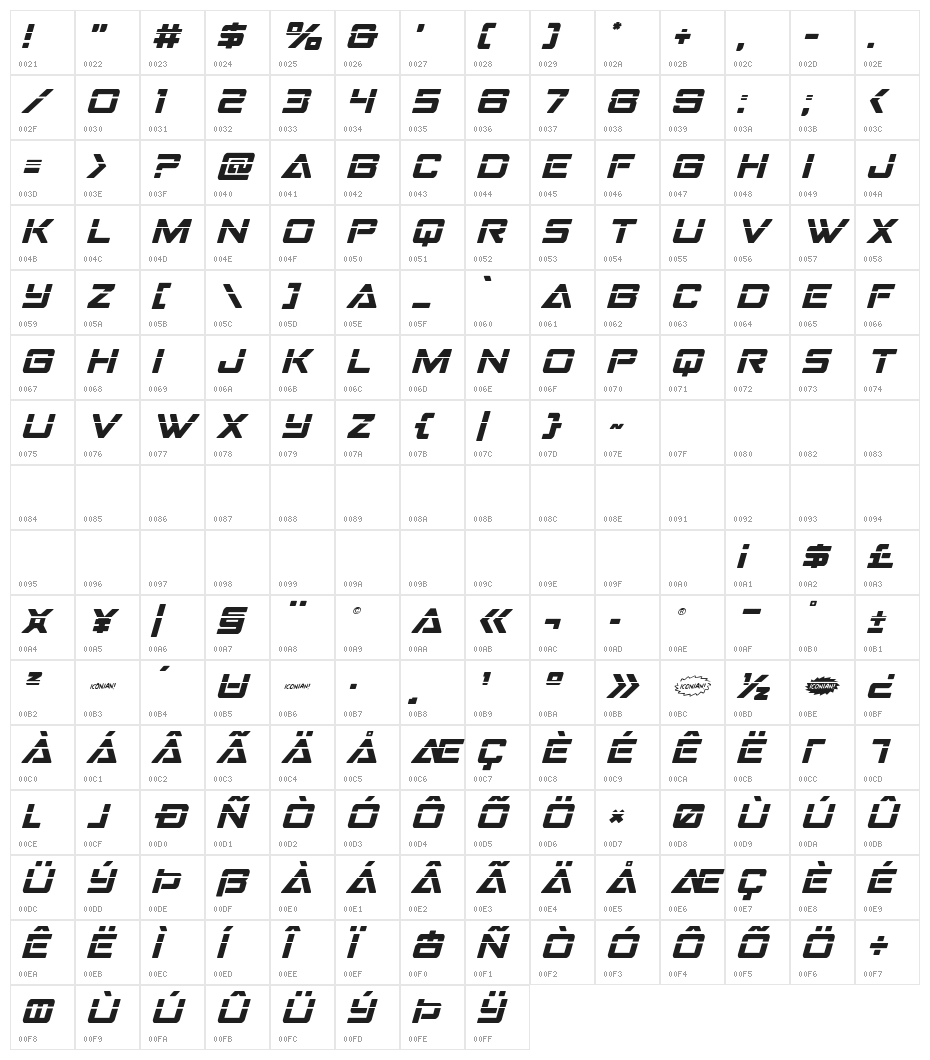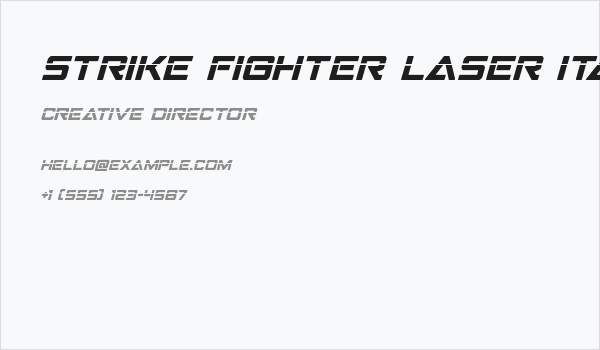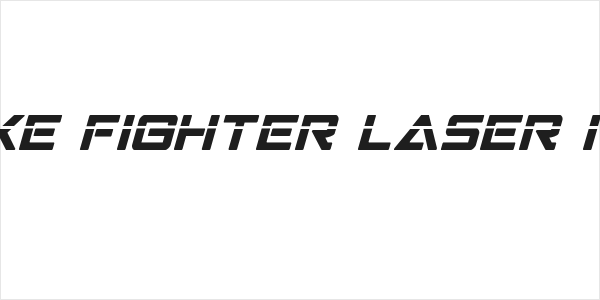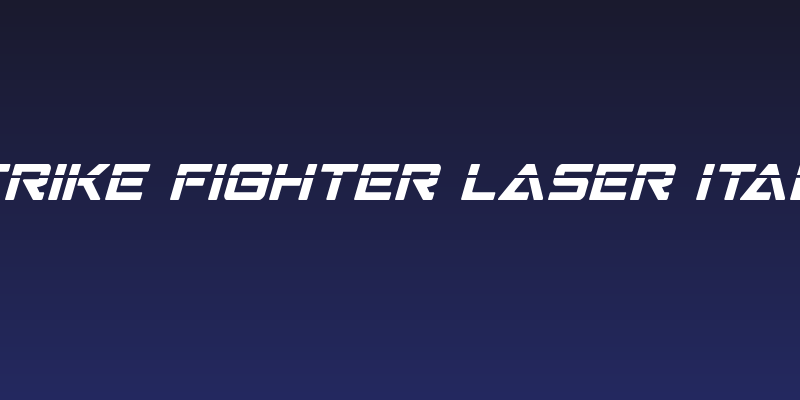
Strike Fighter Laser Italic Font
Strike Fighter Laser Italic Description
This font presents a futuristic and dynamic style, characterized by its sharp angles and italicized form. The letters are designed with a sleek, aerodynamic appearance, reminiscent of high-speed vehicles or advanced technology. The consistent slant across all characters adds a sense of motion and urgency. The font features a uniform stroke width, contributing to a clean and modern look. Its geometric shapes and precise lines make it suitable for projects that require a cutting-edge and innovative feel.
Proposed ProjectsIdeal for sci-fi themed designs, video game titles, technology branding, and futuristic posters.